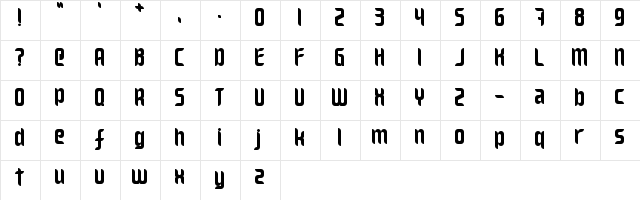
Willburn Regular
Design Context for Willburn Typeface
Willburn takes a measured approach to typography — its balanced proportions and neutral character make it a reliable workhorse for both digital and print work.